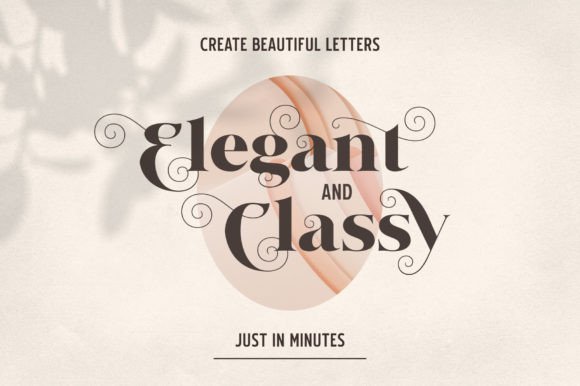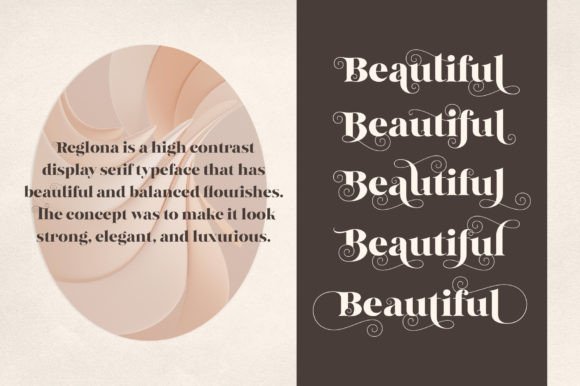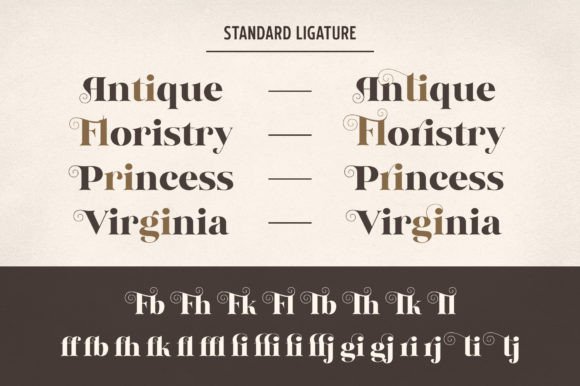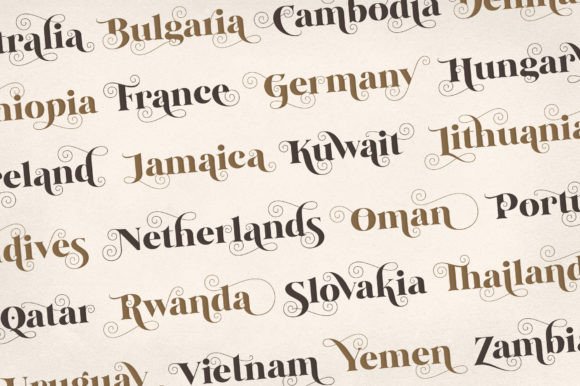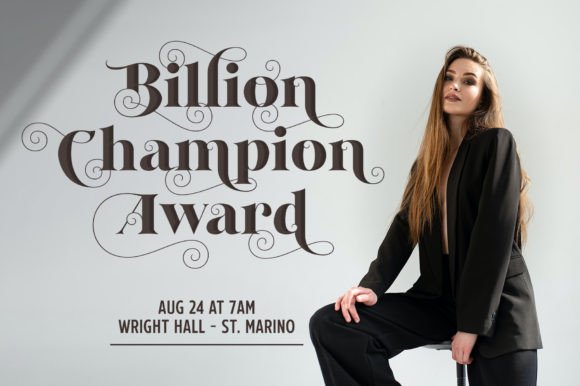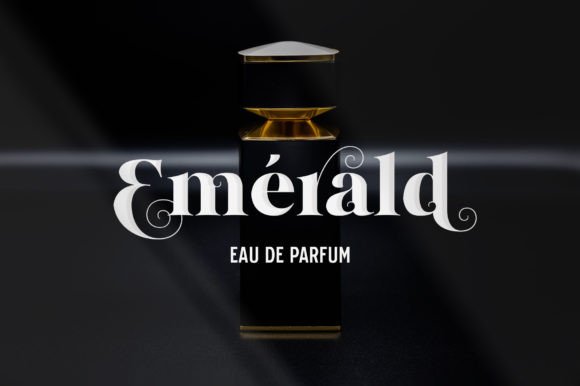
Introduction to Reglona Font
Reglona is a high-contrast display serif typeface that has beautiful and balanced flourishes.
The concept was to make it look strong, elegant, and luxurious Reglona perfectly suited for Headlines, Logotypes, Titles, Packaging Designs, Quotes, and other graphic design projects.
Key Features of Reglona Font